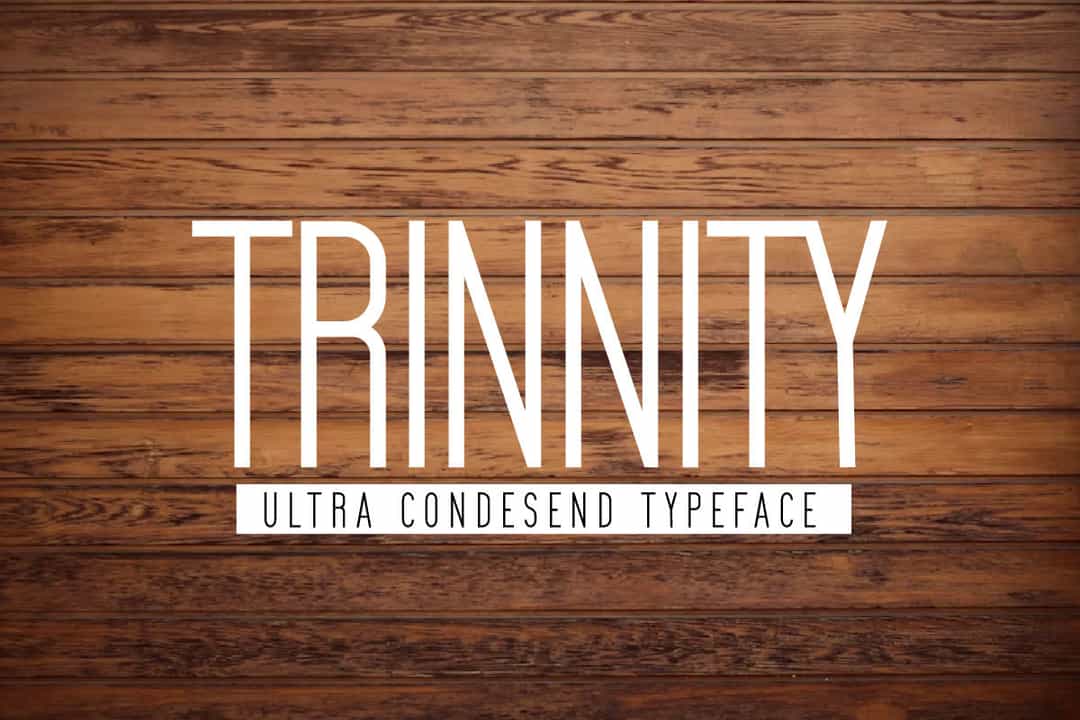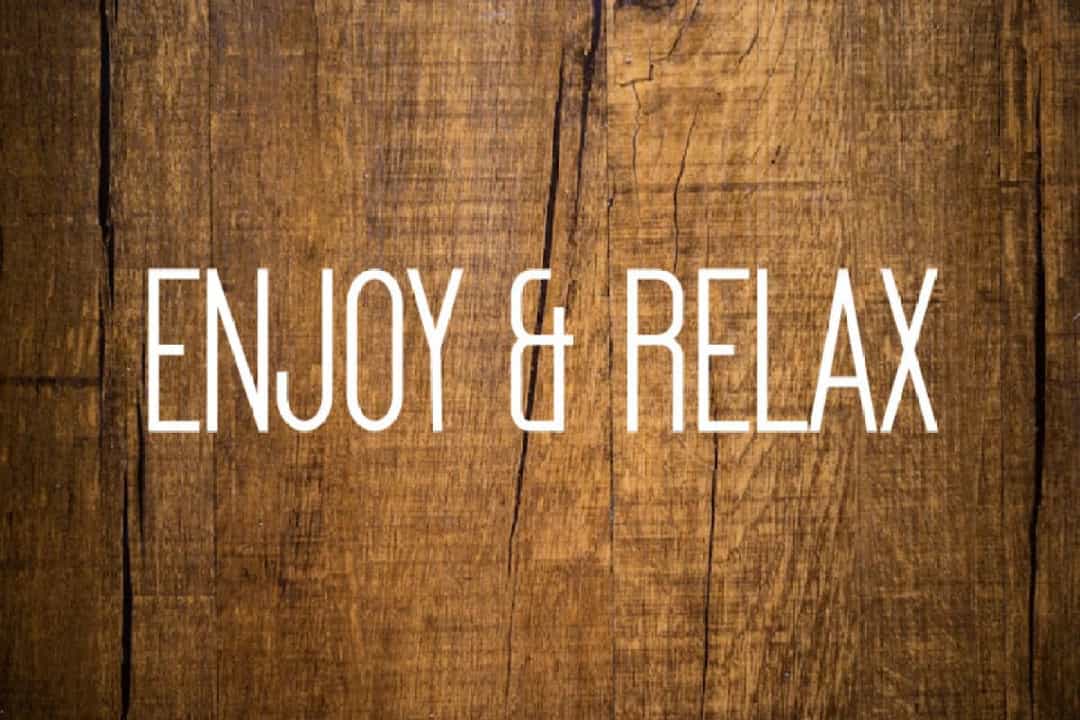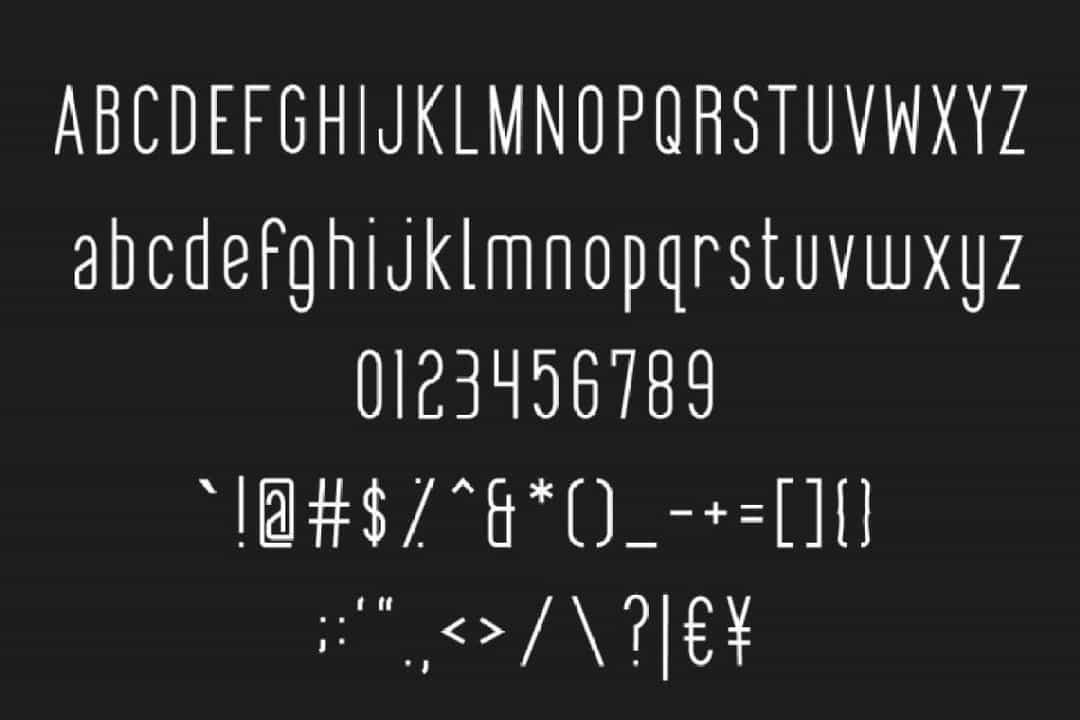
Trinnity font is a high compression sans serif font with serif edges that is perfect for bold headers or any design that requires eye-catching text elements, such as flyers, logos, cards social media sites and web designs. Use Trinnity in all your projects: flyers logos cards web designs social media.